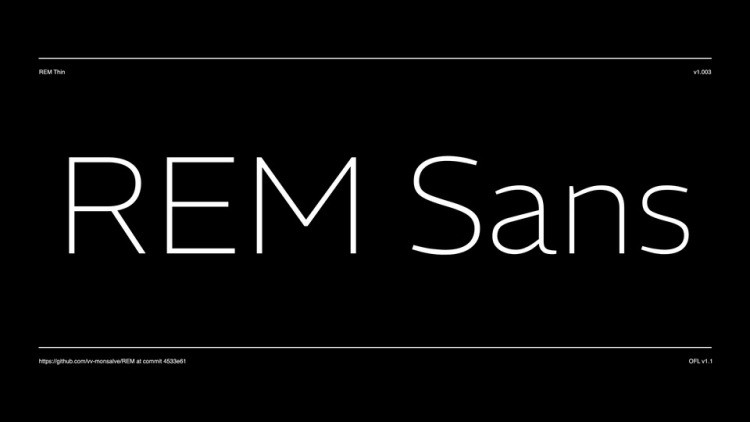
REM Sans Font
REM Sans Font is a sans serif font ready for corporate and display uses. It features a heavy low contrast combined with outstrokes that get slightly thinner, which is the opposite of the conventional approach. All together gives it a contemporary feeling suitable for modern branding.
With more than 960 glyphs the font is ready for complex type setting with 4 sets of figures, small caps and some alternate glyphs. The font’s default settings display a two-story ‘a’ and a one-story ‘g.’ Nevertheless, the user can opt to substitute the ‘a’ with a one-storey version found in the stylistic set 1, replace the ‘g’ with a two-storey version in the stylistic set 2, or utilize a two-storey ‘a’ that lacks an outstroke in the stylistic set 3.